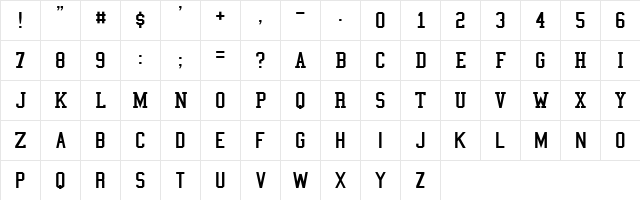
College Semi-condensed Regular
Design Context for College Semi-condensed Typeface
College Semi-condensed has the bold swagger of sports branding: strong, assertive letterforms designed to dominate headlines and jerseys alike. Its narrow stance lets it pack a punch even in space-constrained designs.
Built for sports team identities, athletic apparel, event posters, and high-energy promotional material.
Pro Tip: College Semi-condensed thrives on contrast — try it large, bold, and tight against a clean background for maximum visual impact.